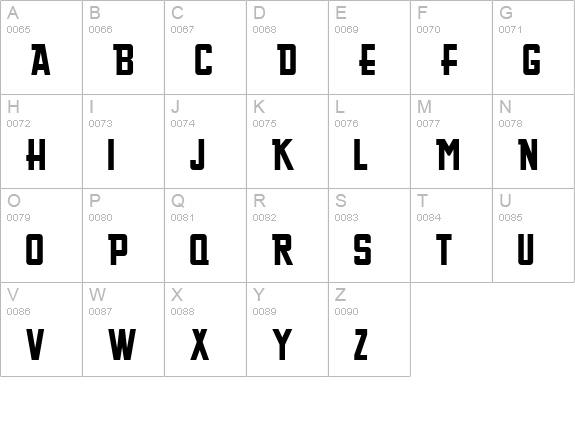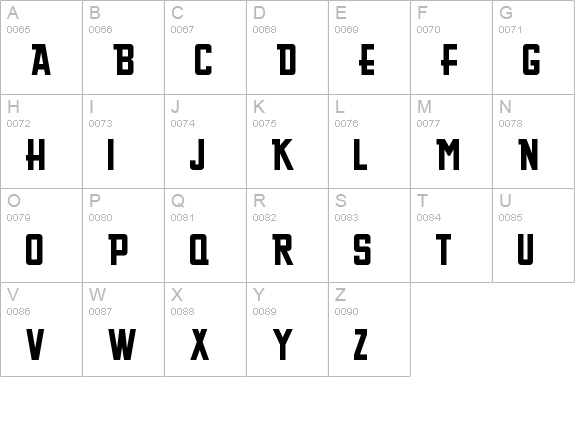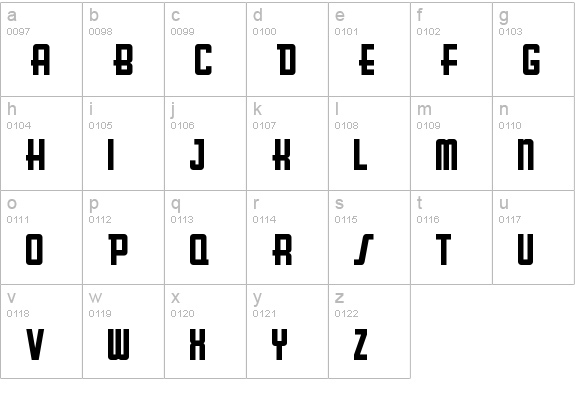
Greasy Spoon NF Font Details
Greasy Spoon NF is a charming and quirky font that brings a touch of retro nostalgia to your design projects. Inspired by vintage diner signage, this typeface boasts a playful and casual aesthetic that is perfect for adding a fun and laid-back vibe to any creative endeavor. With its uneven strokes and unique character shapes, Greasy Spoon NF exudes a sense of handmade authenticity that will make your text stand out. Best of all, Greasy Spoon NF is available for free download at FontsMarket.com. Whether you're working on a menu design, a poster, or a branding project, this font is sure to add a touch of personality and flair. Embrace the retro vibes and inject some fun into your typography with Greasy Spoon NF.